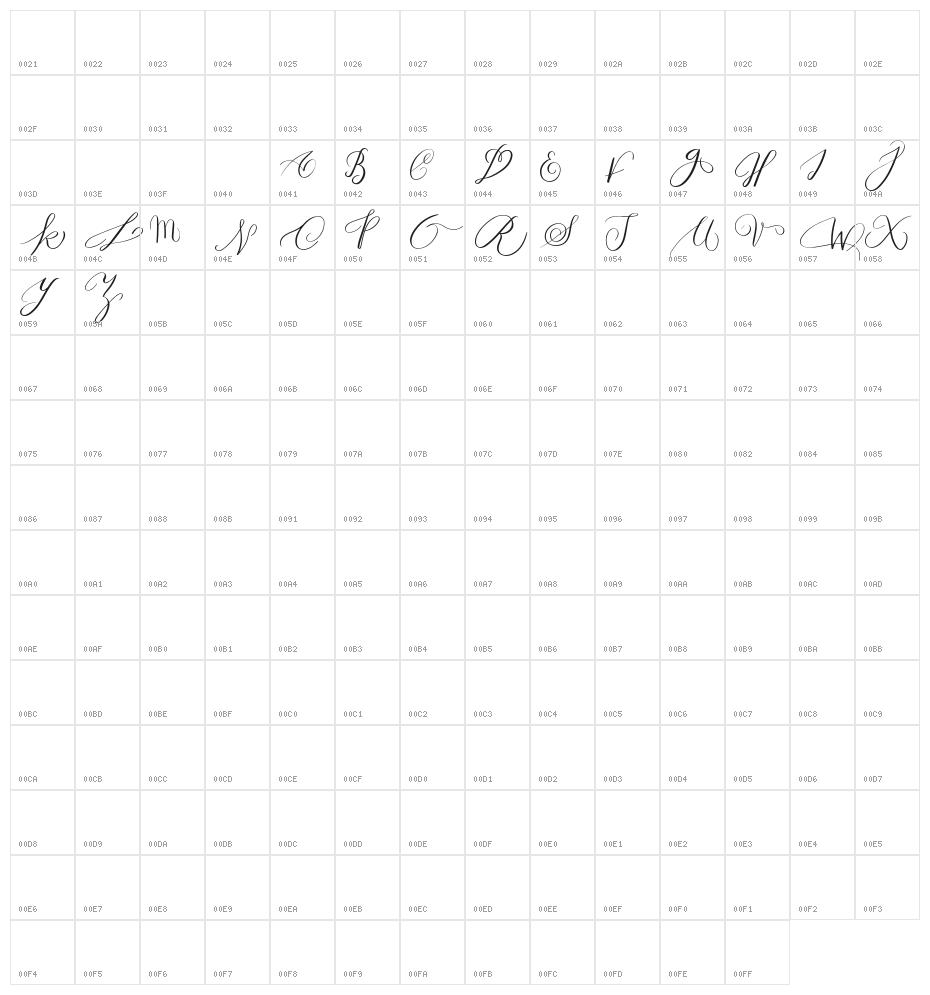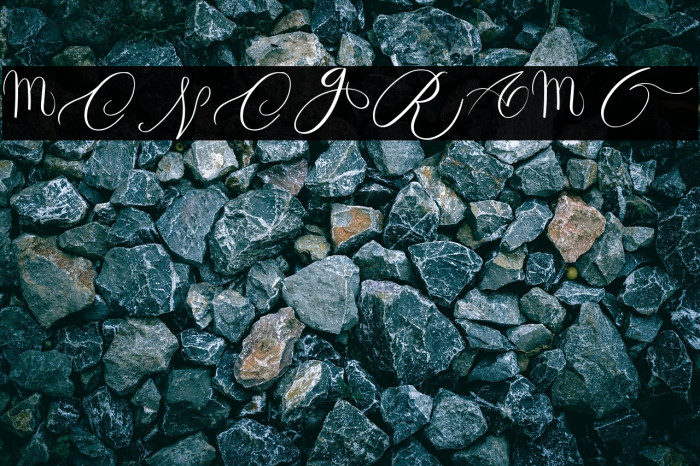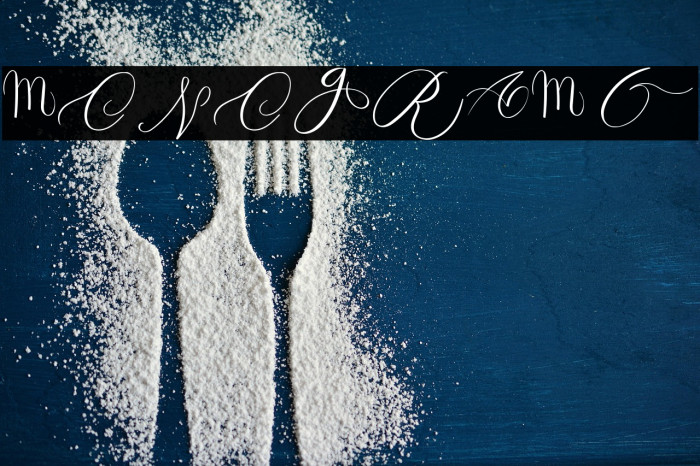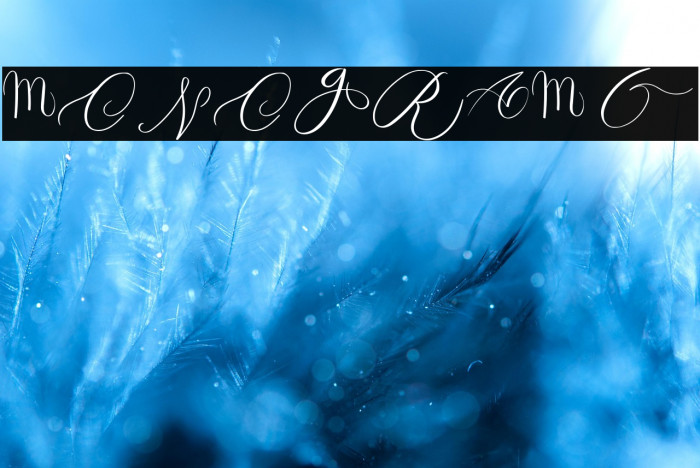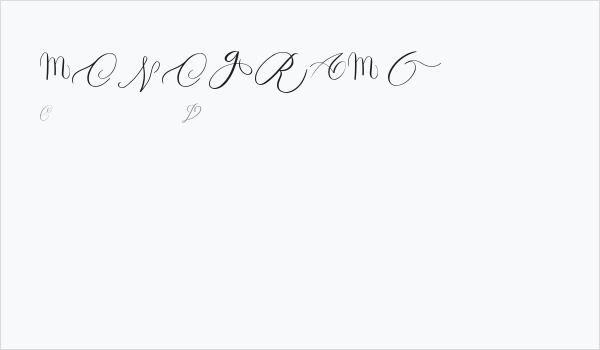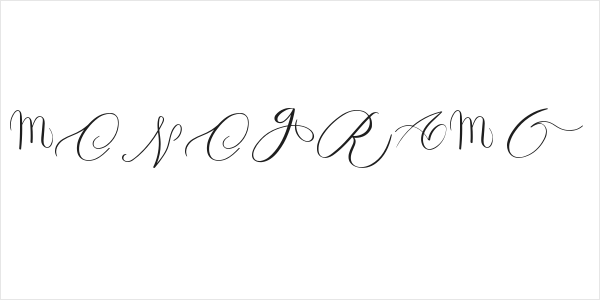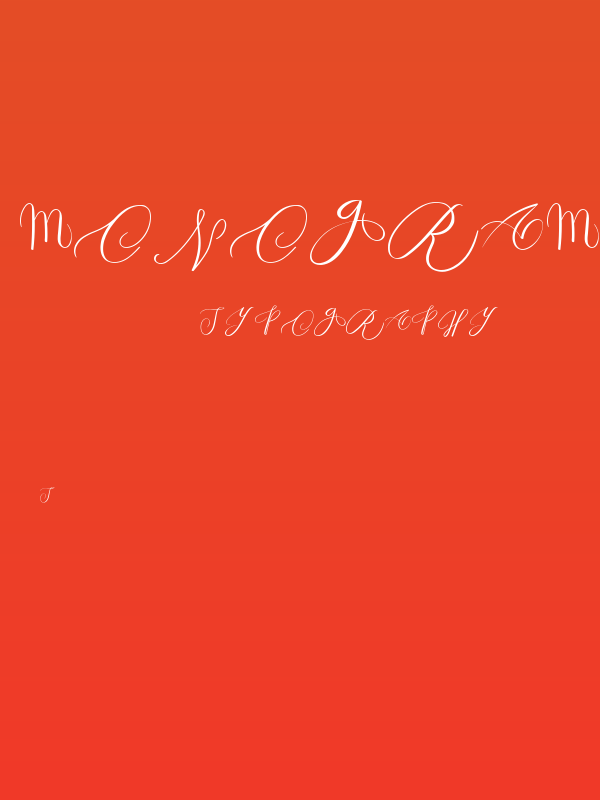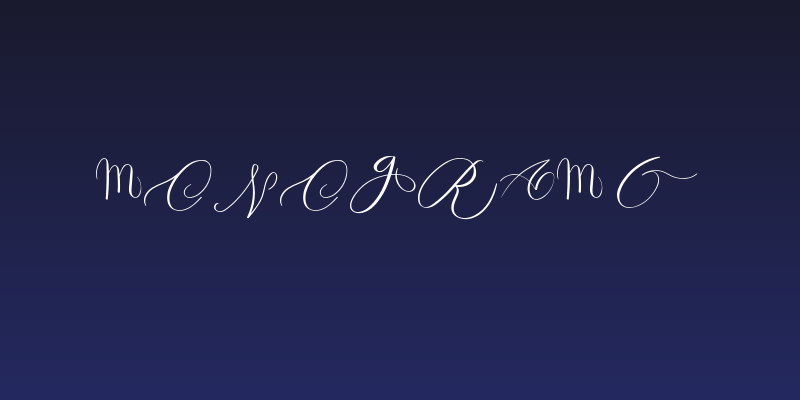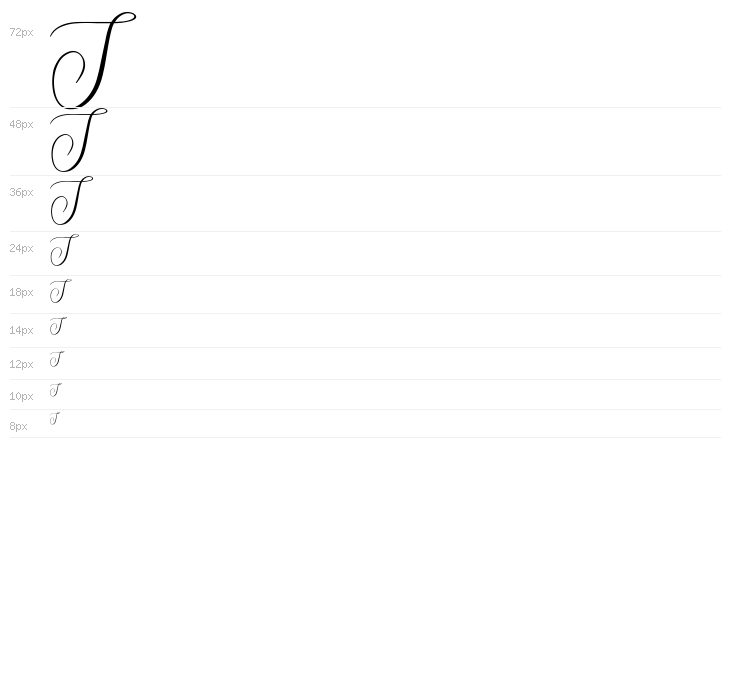
MONOGRAM Q Font
MONOGRAM Q Description
This font is a beautifully crafted script style that exudes elegance and sophistication. Each letter is adorned with intricate flourishes and loops, giving it a luxurious and ornate appearance. The strokes are delicate yet pronounced, with a graceful flow that mimics the fluidity of hand-drawn calligraphy. The uppercase letters are particularly elaborate, making them ideal for creating striking monograms or decorative initials. The overall design is both classic and timeless, perfect for adding a touch of refinement to any project.
| Overall Style | Classic |
| Use Case | Logos, Invitations, Decorative Text |
| Proposed Projects | Ideal for wedding invitations, luxury branding, monograms, and elegant stationery. |